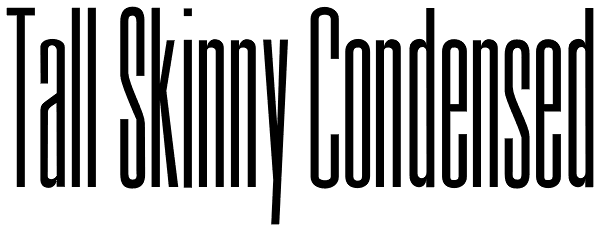
Tall Skinny Condensed
This is the tallest, skinniest, most condensed, non serif font I know of. I designed this because I felt a serious need for that one big, thin word to fit in a narrow space. It is great for ‘SALE!’ in a one column ad. Also is a life saver for...